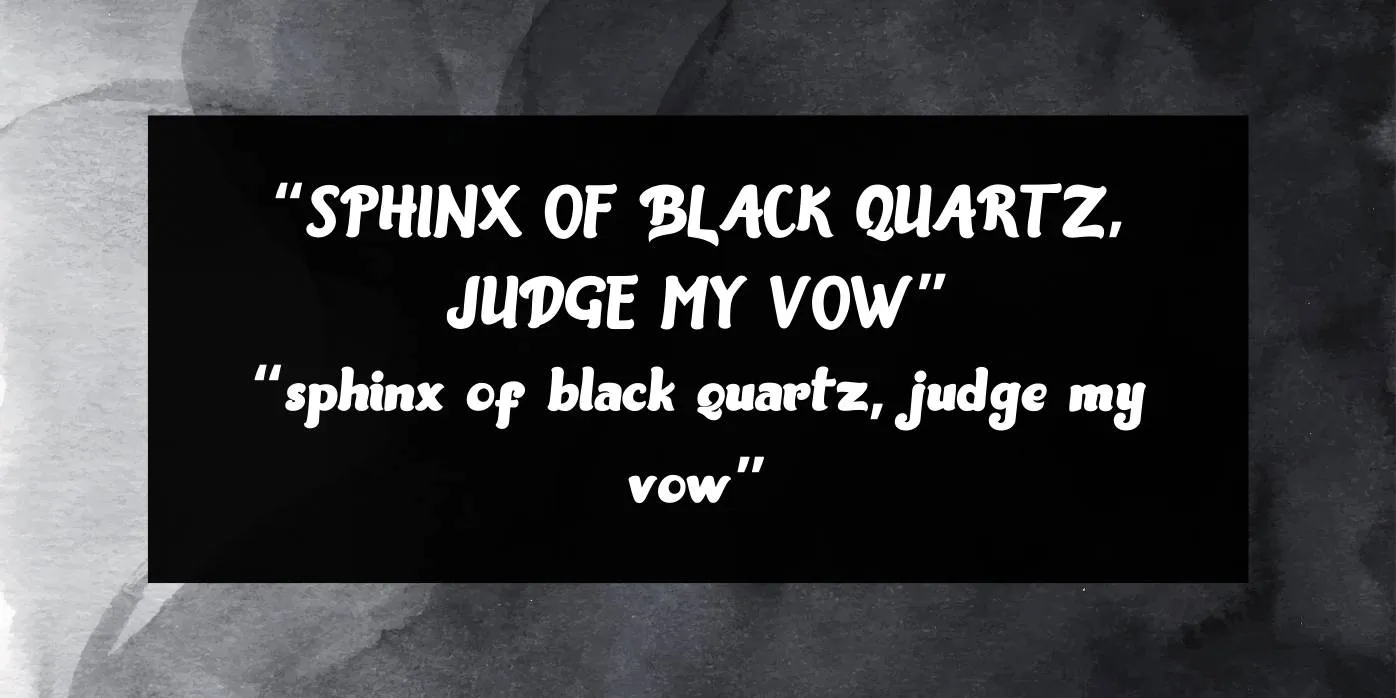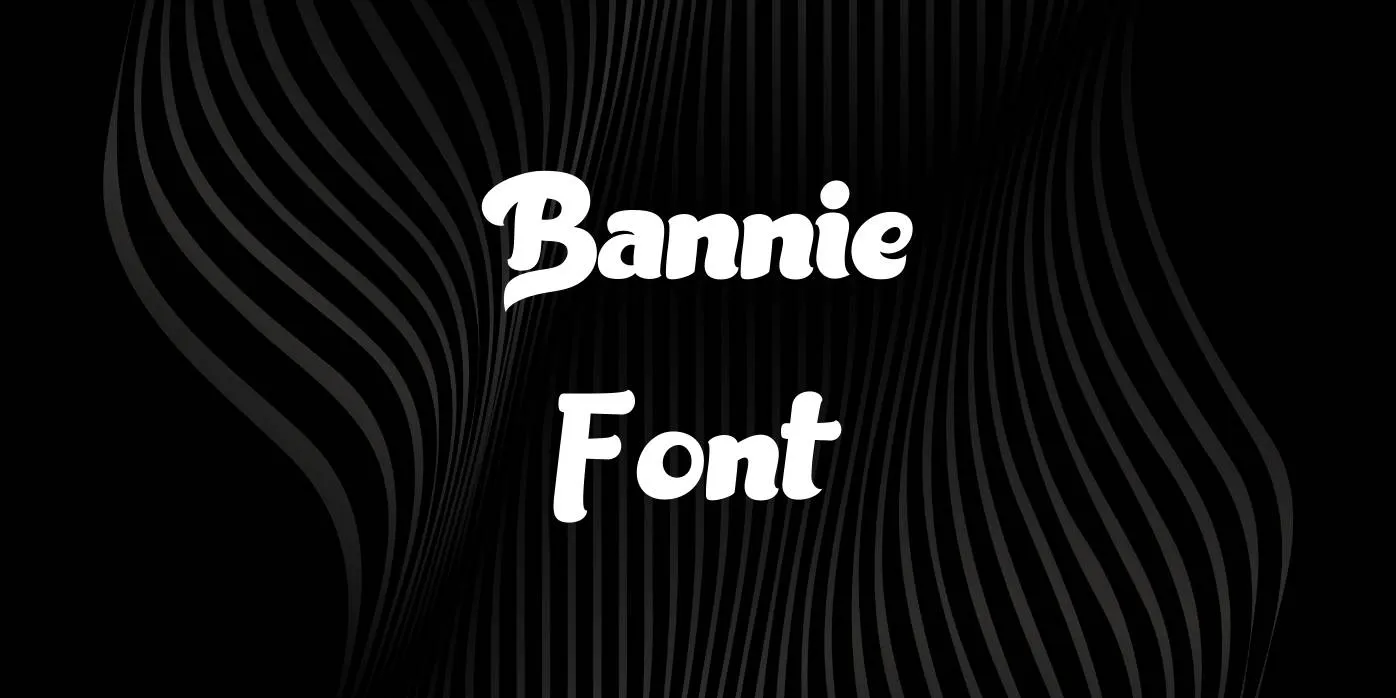
Bannie Font
Here we discuss detailed information about a very interesting typeface the Bannie Font. This stunning typeface is designed by Dian Haniffan Hadi and manufactured by Bearytpye Studios. It contains 164 characters, 133 glyphs, and 1000 units per Em. The weight of the font is bold and its width is semi-expanded.
Usage It is a very interesting font and can be used to design any project. Its lowercase and uppercase letters have very unique look which makes it perfect to design attractive headlines. To make attractive Logos and Titles of different brands you can use this font as well. For making handwritten notes, and stylish quotes you can use this font.
It is a stylish handwritten font and you can make wedding card invitations, birthday invitations, and other event invitations by using this font. You can also use this font for making amazing websites and graphic designs. In different Illustrators like Adobe Photoshop, CSS, and Canva you can make or edit eye-catching designs with this font. To make book covers, magazine covers and storybook covers you can use this font as well.
FAQs! Who is the designer of the Bannie font? It is a very nice script font designed by Dian Haniffan Hadi and manufactured by Bearytpye Studios. You can use it for making so many different projects.